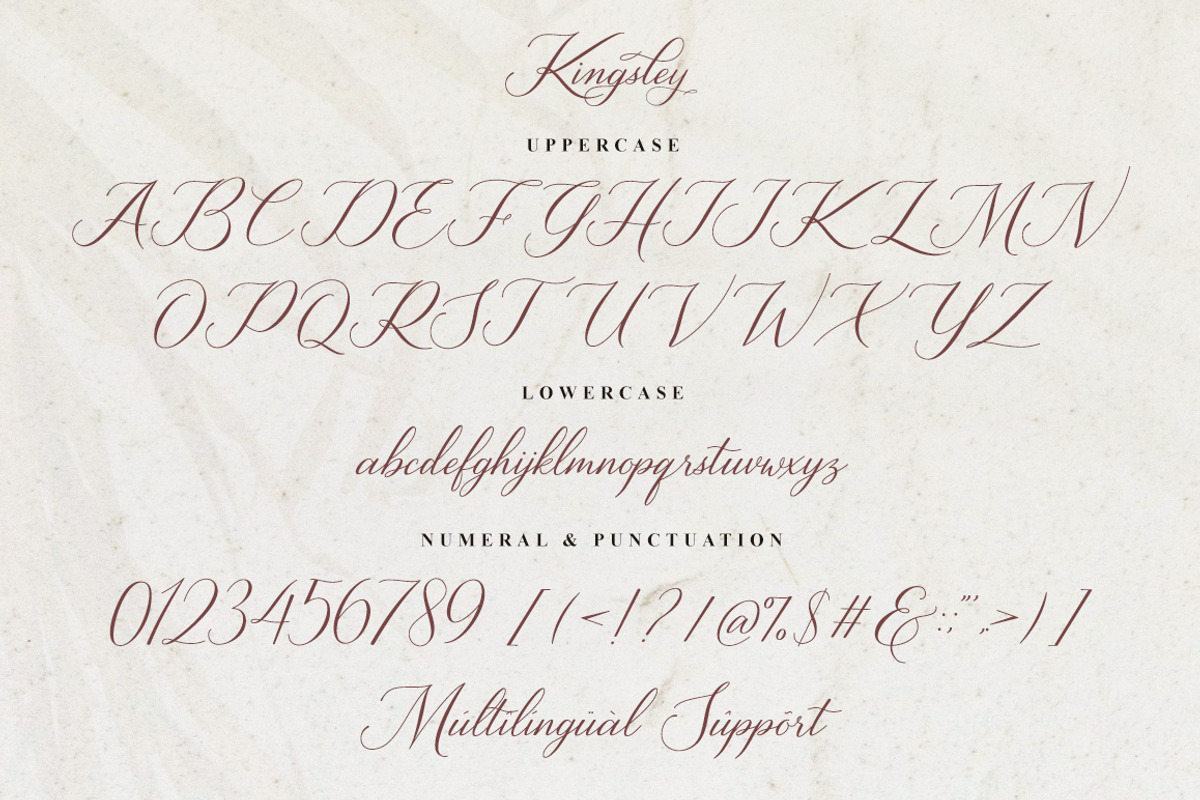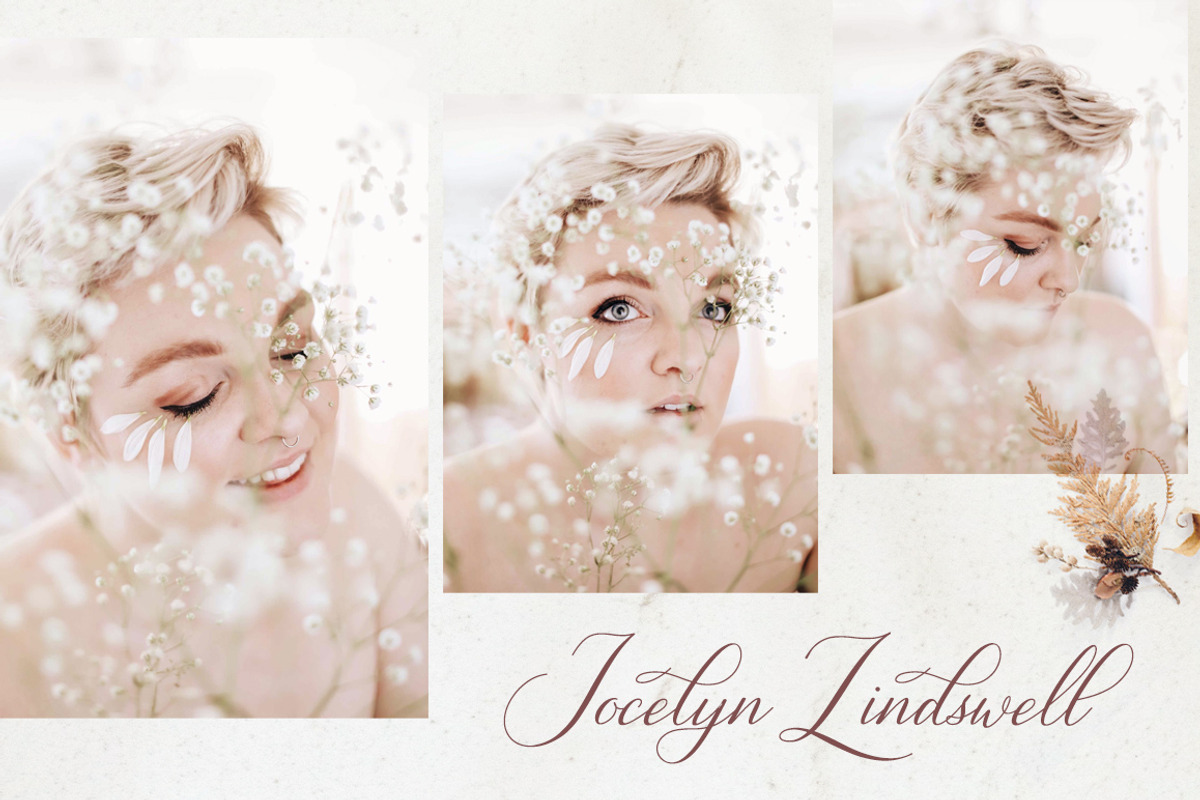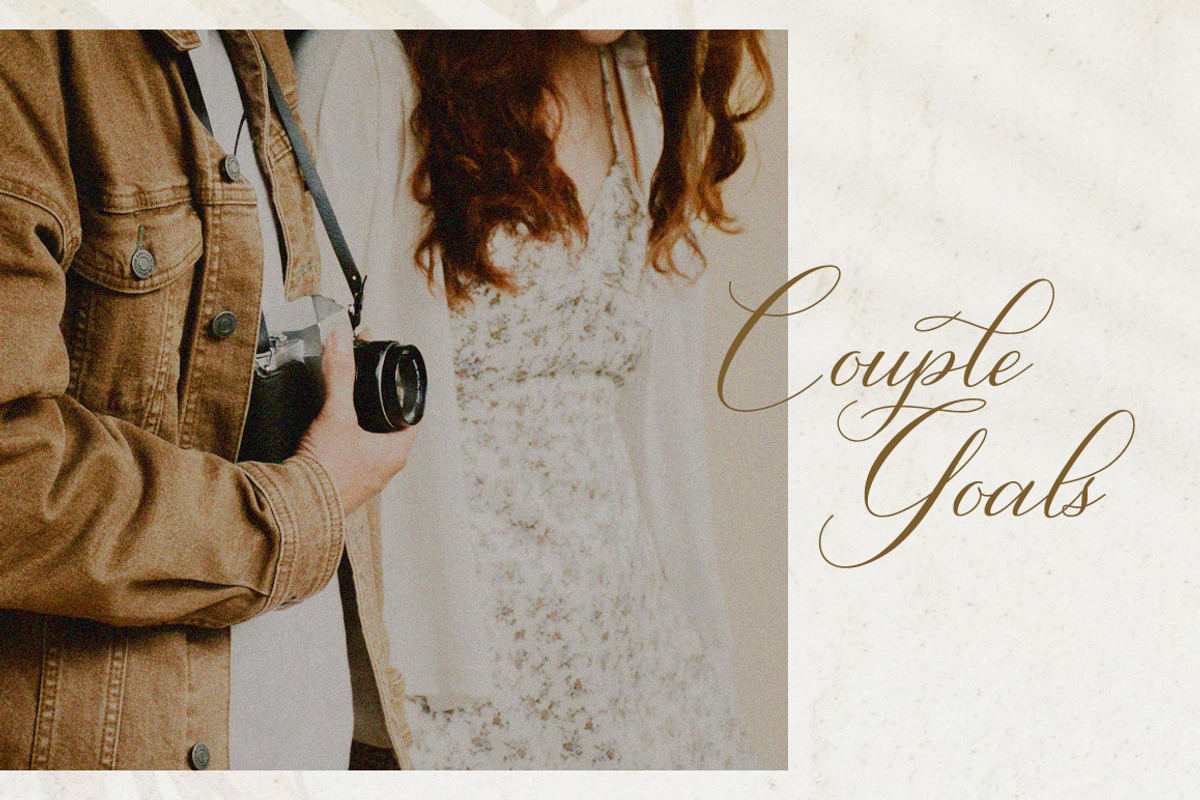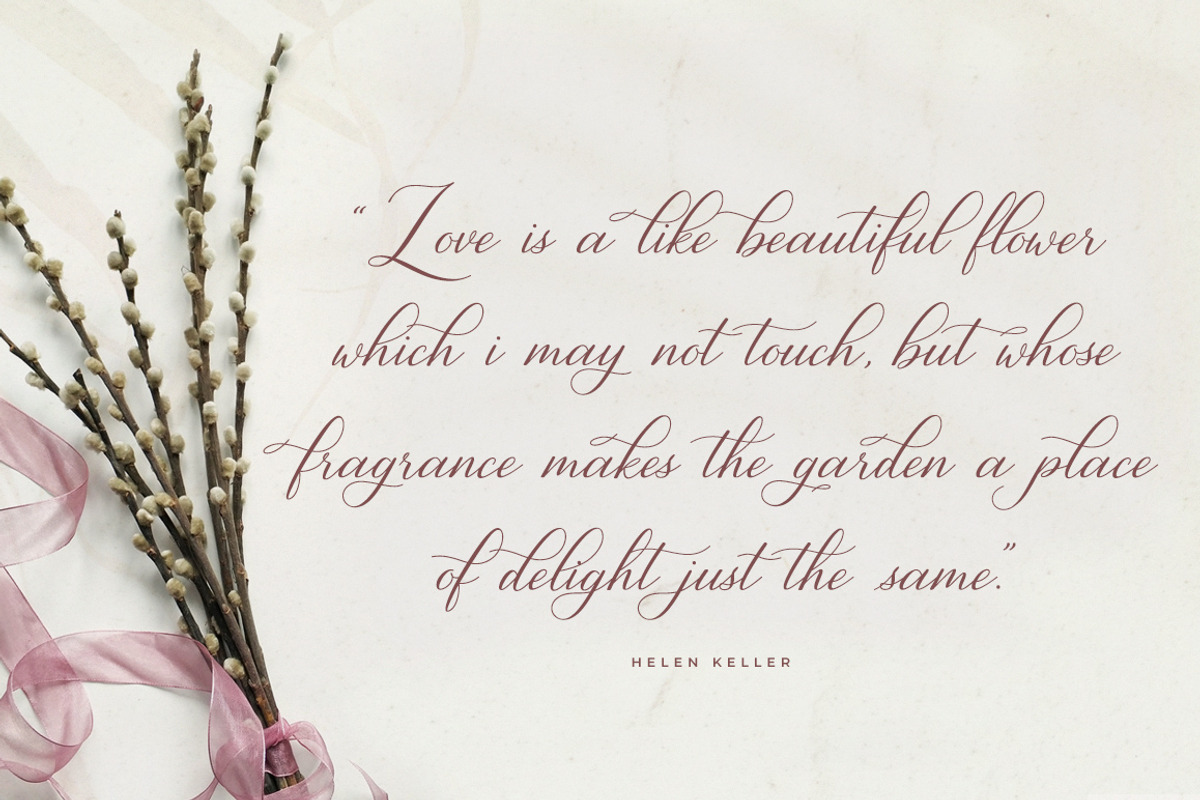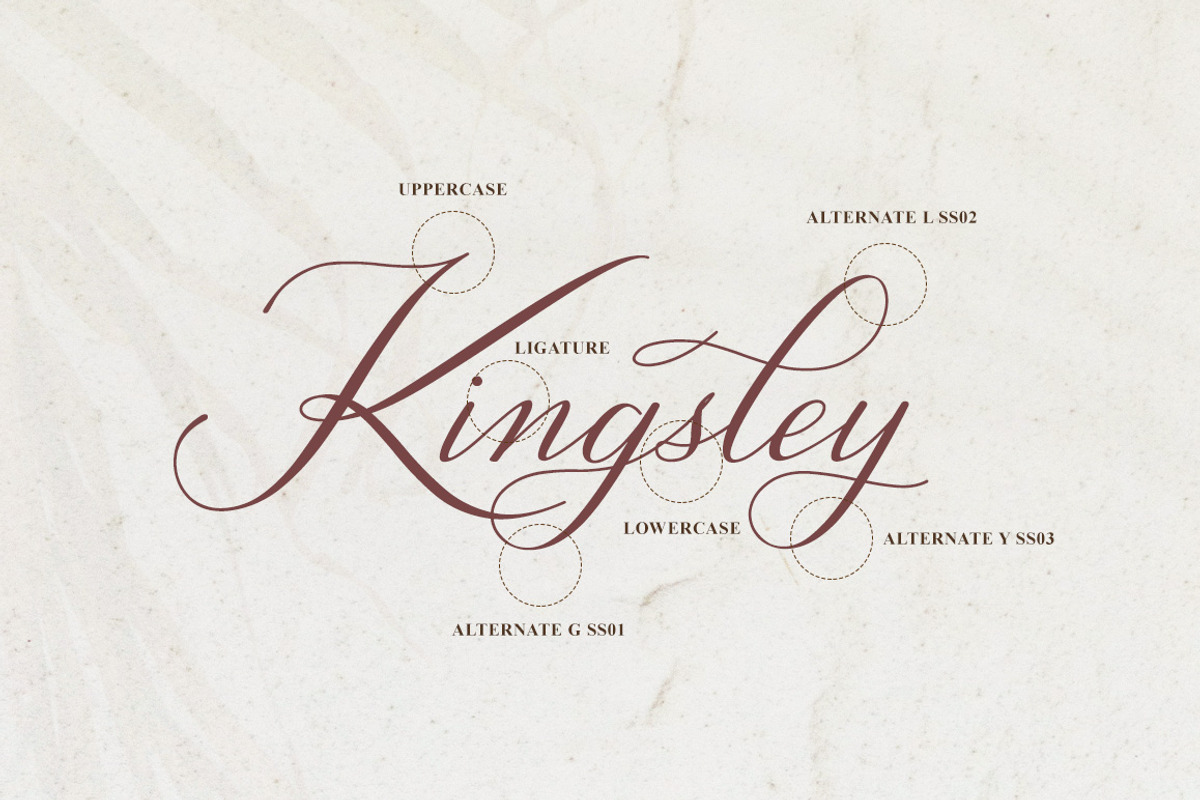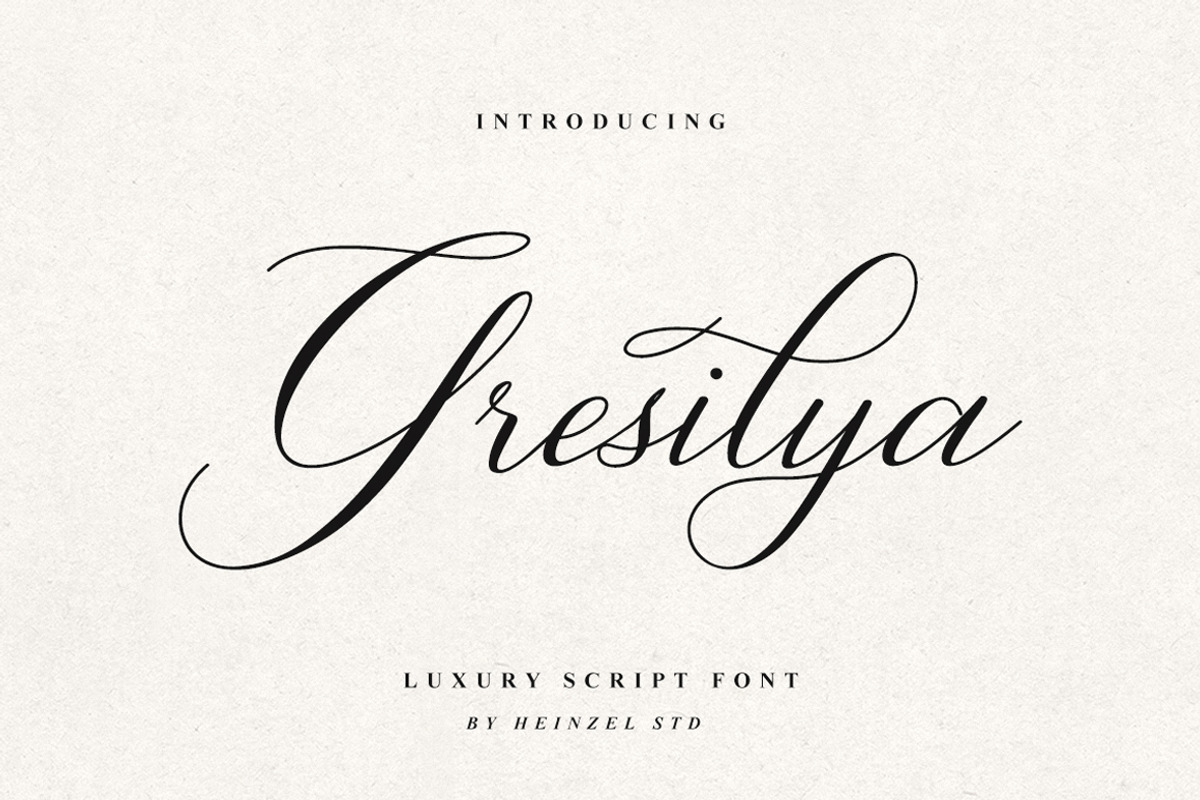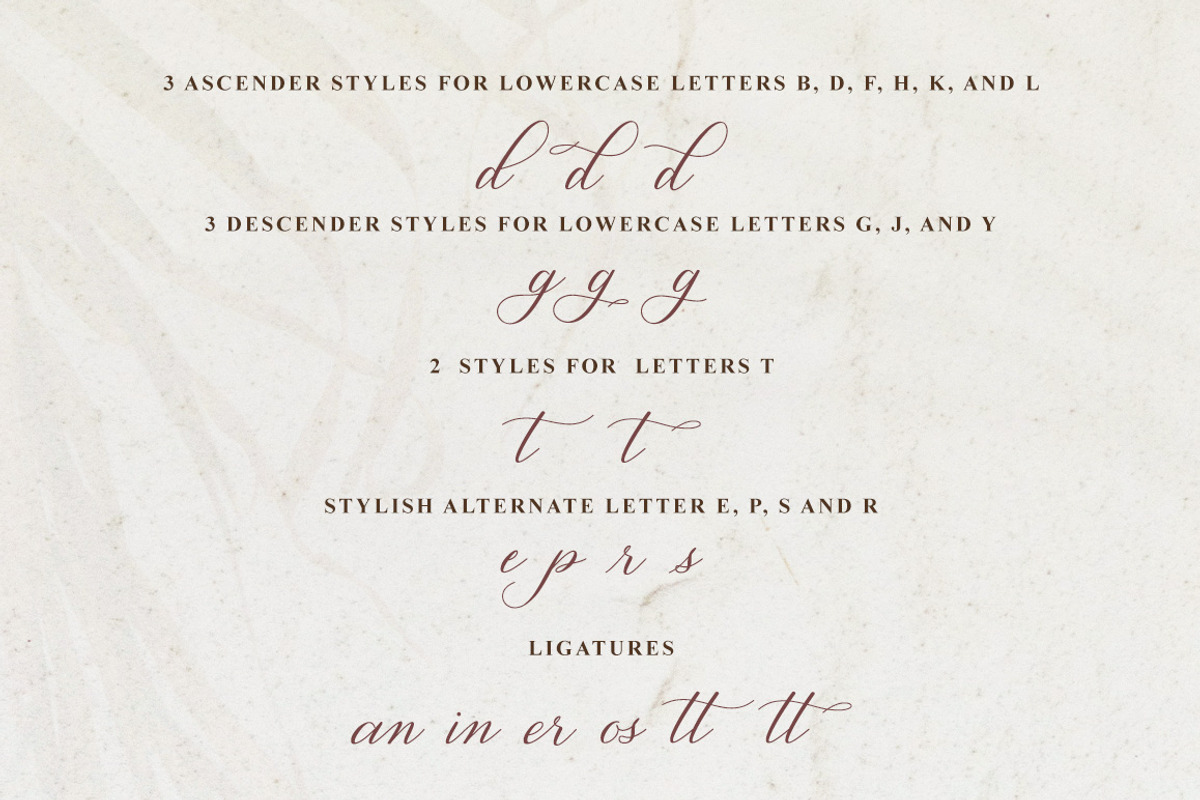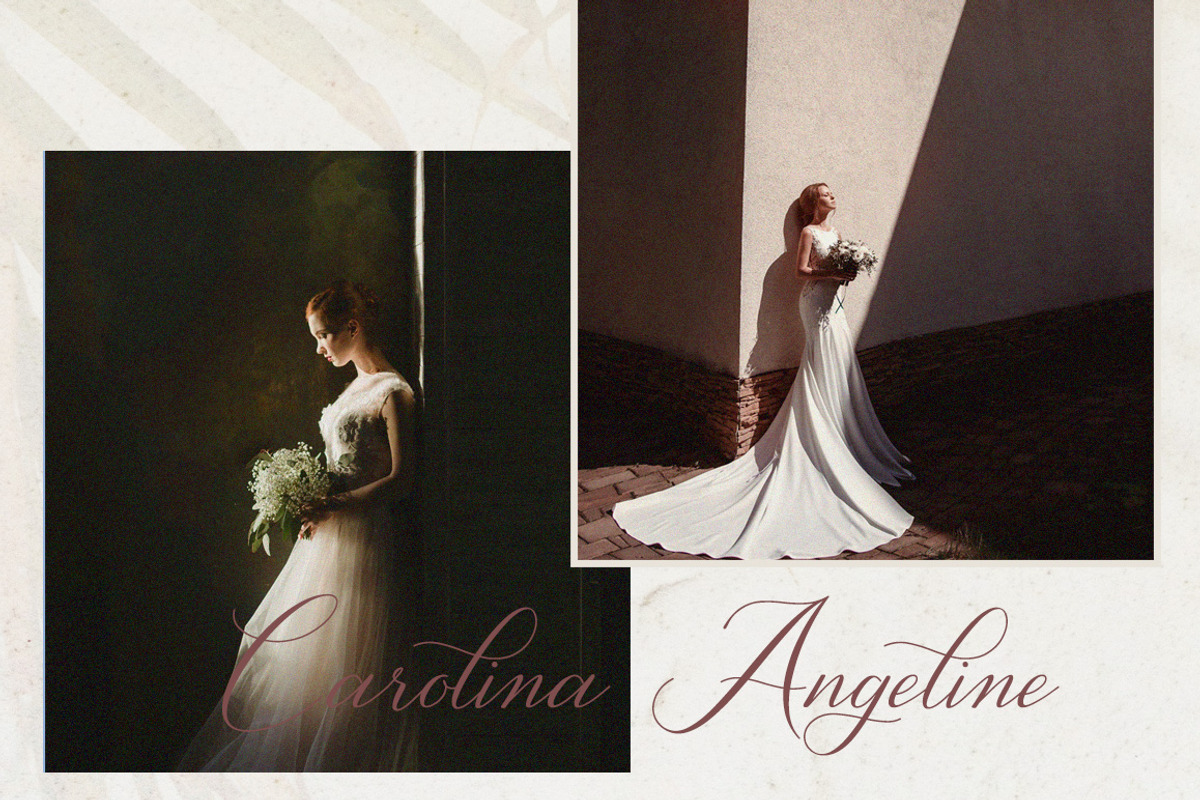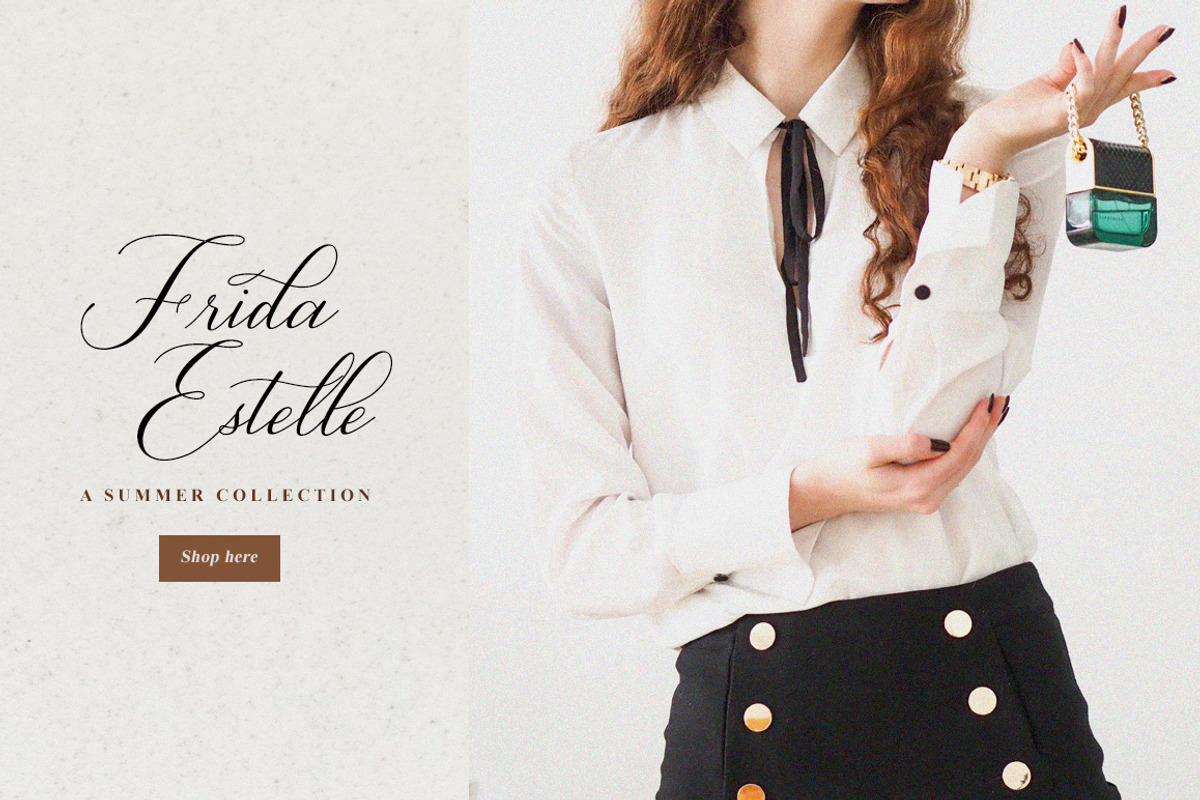
Gresilya Calligraphy Script Font
Gresilya is a beautiful and refined script font. It has a classy, elegant and modern look that can be used for logos, branding, invitations, stationery, wedding designs, social media posts, and much more! This font is PUA encoded which means you can access all of the amazing glyphs and ligatures with ease! Fall in love with this font and bring your projects to the highest levels!
Gresilya Features :